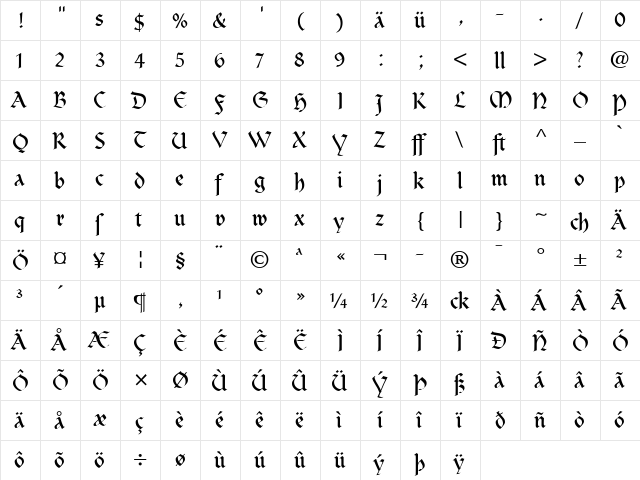
Clairvaux LT Dfr Regular
Design Context for Clairvaux LT Dfr Typeface
Clairvaux LT Dfr takes a measured approach to typography — its balanced proportions and neutral character make it a reliable workhorse for both digital and print work. Its slender proportions lend an understated elegance to any composition.